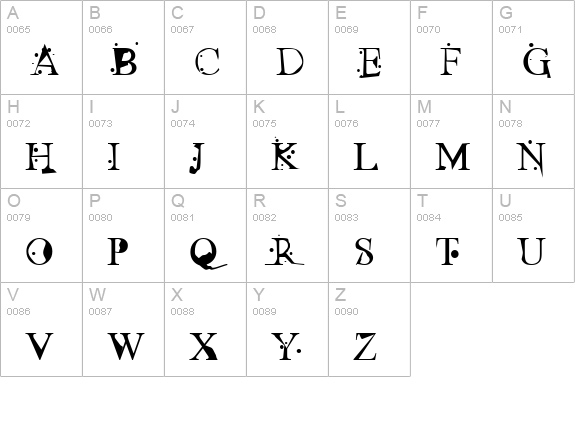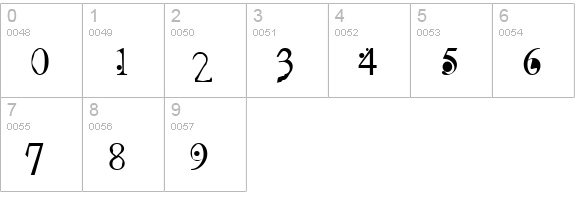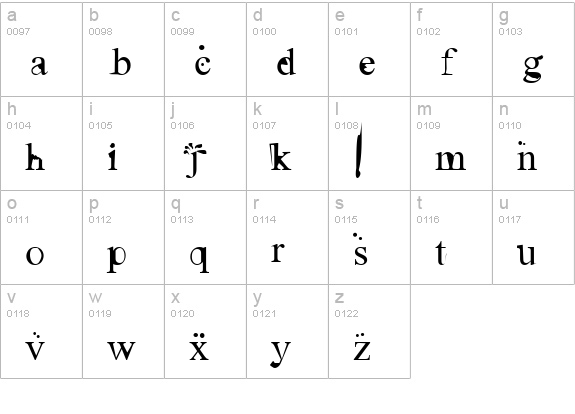
Ugly Face Font Details
Introducing Ugly Face font, a quirky and eccentric typeface that adds a touch of unconventional charm to any design project. With its distorted and irregular letterforms, Ugly Face font breaks away from the traditional norms of typography and embraces its own unique personality. This playful font is perfect for those seeking to make a bold statement or add a dose of whimsy to their designs. Whether it's for a poster, logo, or social media graphics, Ugly Face font will surely capture attention and leave a lasting impression. But what truly sets Ugly Face font apart is not just its distinctive aesthetic, but also the fact that it is freely available to download at FontsMarket.com. Yes, you read that right – this extraordinary font can be yours without spending a dime. FontsMarket.com offers a vast collection of high-quality fonts, and Ugly Face font is just one of the many gems waiting to be discovered. Don't miss out on the opportunity to enhance your creative projects with Ugly Face font. Download it today from FontsMarket.com and let your designs embrace the beauty in the unconventional.